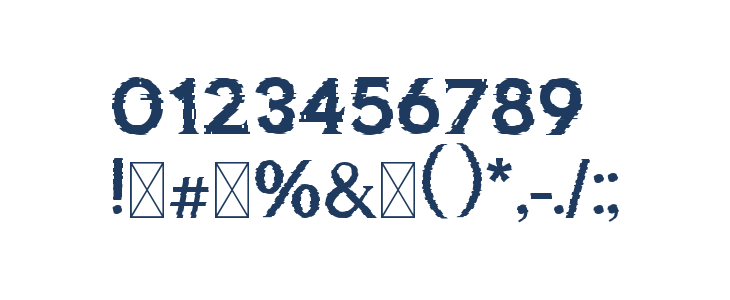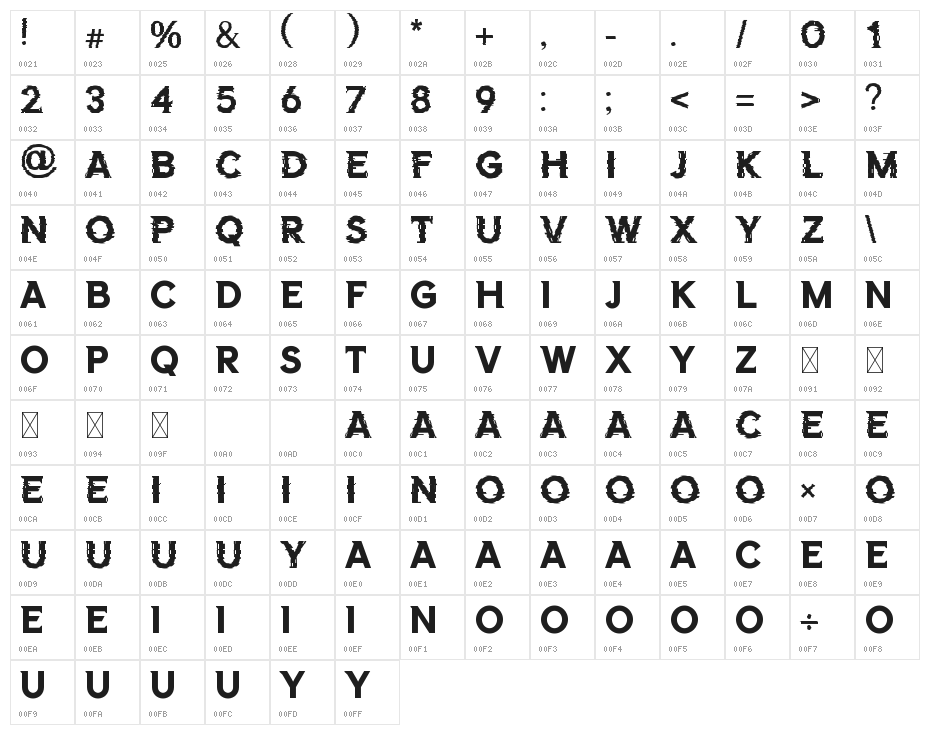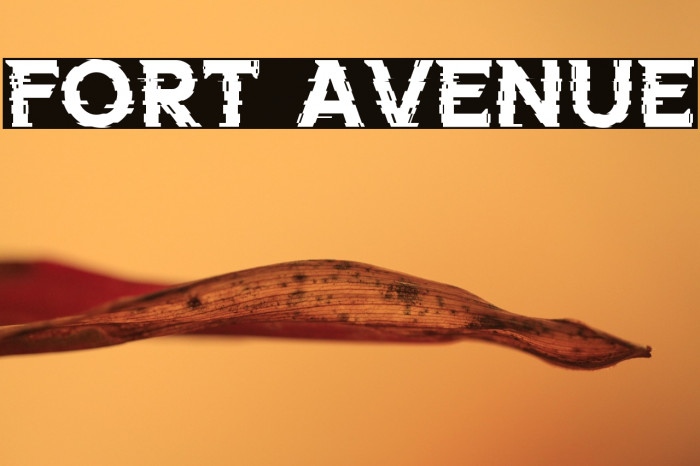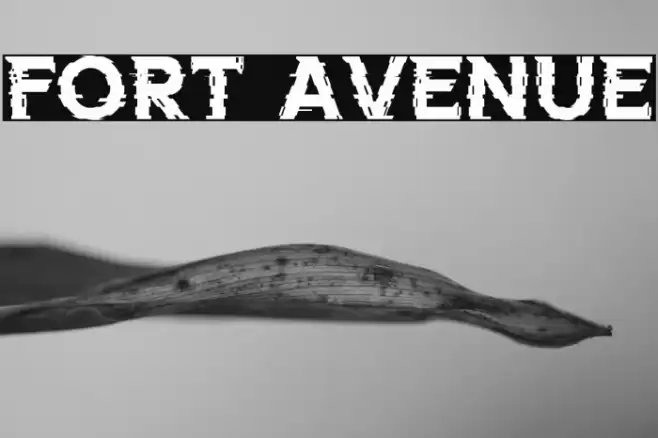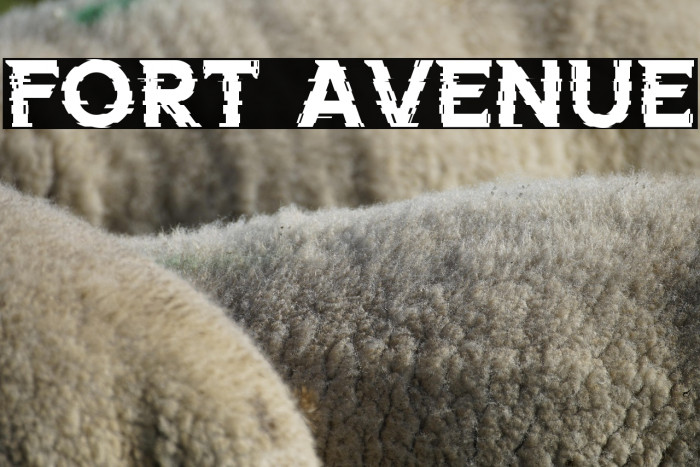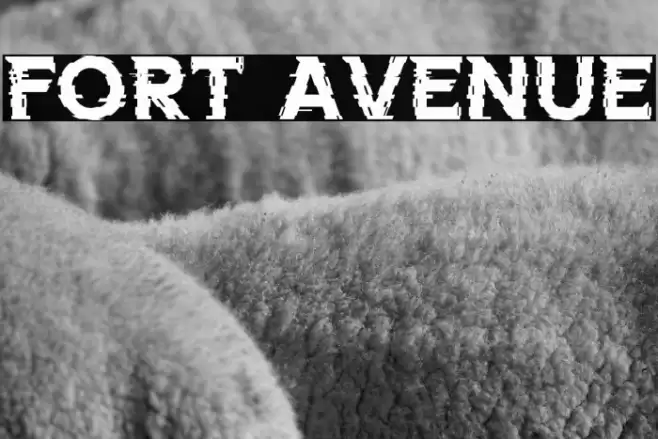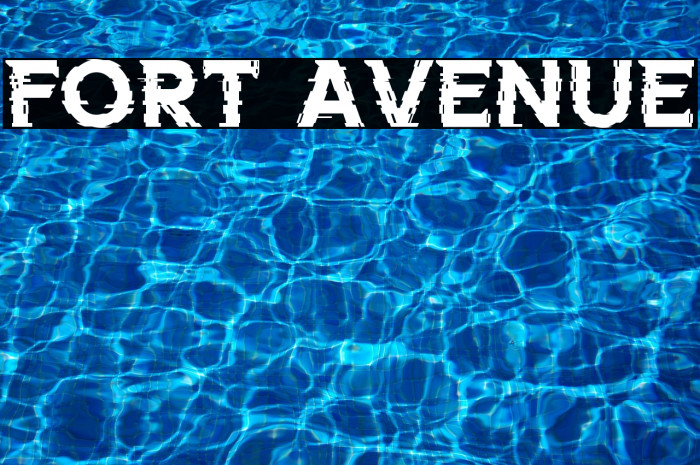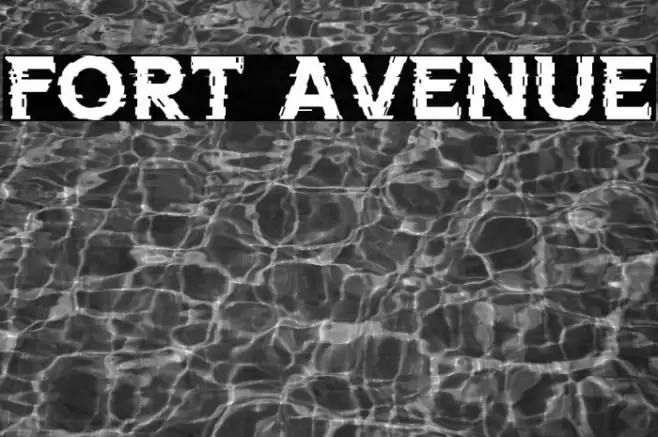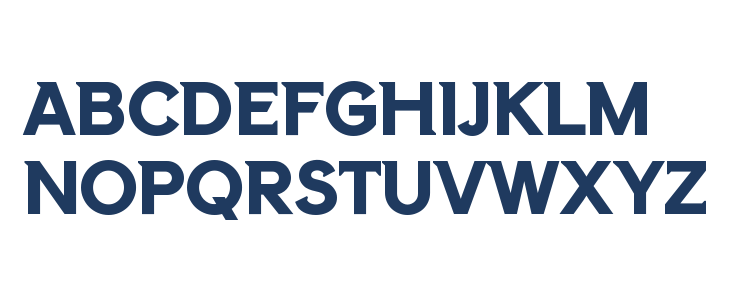
FORT AVENUE Font
FORT AVENUE Description
This font presents a bold and striking appearance with two distinct styles. The first style features a distressed, grunge effect that gives it a rugged and edgy look, perfect for projects that require a raw and dynamic feel. The second style is clean and bold, offering a modern and straightforward aesthetic suitable for clear communication. The uppercase letters are prominent and well-defined, making them ideal for headlines and titles. The numerals and special characters maintain the same stylistic approach, ensuring consistency across different uses. The combination of these styles provides versatility, allowing for creative expression in various design contexts.
| Overall Style | Modern, Edgy |
| Proposed Projects | This font is perfect for album covers, posters, branding materials, and any project that requires a bold statement. Its grunge style is well-suited for edgy designs, while the clean style works well for modern, minimalist projects. |